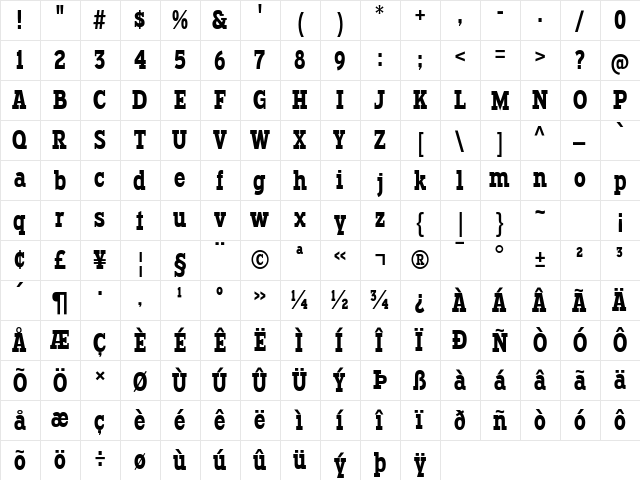
Typodermic Regular
Design Context for Typodermic Typeface
Typodermic is a composed and adaptable typeface that performs quietly and consistently across a wide range of design contexts.